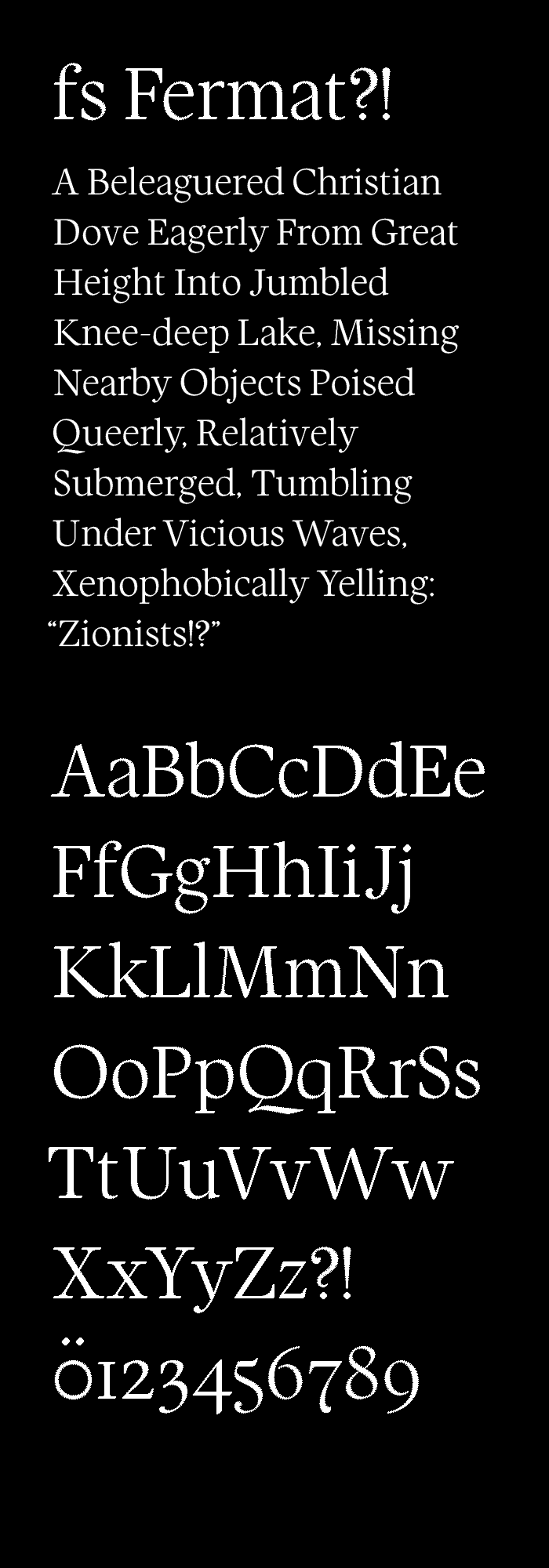
What began nearly 8 years ago as an experiment in multi-stage, multi-resolution pixel serif type drafting (starting smallish then manually upscaling x4), took on the robust character you see here after countless edits and some tricky lessons learned along the way.
The initial weight was on the light side (cloned privately for posterity), so I took a leap into this bookish weight by fattening each glyph copy-pasted 1 pixel shifted both up and to the right. A rudimentary technique, by no means novel, yet almost wholly effective. I saw fit from here to only make a handful of corrections, keeping the slightly rounded and slanted serif shape that resulted as well as the subtle reenforcing of a pen-nib construction.
More intriguing is the 1-bit “anti-aliasing” scheme I found myself progressively guided toward while finding the lines of these curves developing the initial light weight. Implied diagonals and said curves – as well as refinement of contrast – are substantially more granular and specific than had I taken a black-and-white posterized, or stairstepped approach.
At half-resolution, the resulting smoothness is acceptible. This type of hinting will be useful in developing a substitution rule set consisting of subpixel slanted or curved bricks to produce a “vectorized” version.
Indeed, such a process could be purely automated by a proficient developer or properly trained neural network (this would be a really interesting future feature for fontstruct pro – rather than hinting a font after painstaking vector construction, why not reverse the process by way of en vogue ai-assisted upscaling?).
Basic accented charaters and numerals are being added as I churn through the extended character set...
(Also, there seems to be a stray pixel above your extra X)
I’ll post images of my process, as I think the grid-doubling approach is worthy of further exploration. The next step before I move forward with more characters is to test out composites. :)
The overshoots are now a bit overshot. But rest assured I will rein them back in during the compositing phase. It’s already an improvement.
Now by manually doubling the grid, are you saying you were going from the 1:1 to 2:2 filter space by displacing each row and column by one grid block, or are you remaining at the 1:1 ratio? Either way, it is a technical and tedious challenge indeed. This is probably why you suggested single row or column selection. Working with the double size should be fine. Larger sizes offer more spacing options, but there's always the challenge of finding the balance for efficient brick usage. Fermat is great in pixel form, but how did you achieve the manual anti-aliasing in the sample?
This is not a bad modern font, but I put it 9/10. If I understand correctly, the construction of the characters of your font is based on writing with a broad nib. And this, along with horizontal serifs and drops peculiar to the fonts with the base in the pointed nib, looks too much eclectic. "С" "с" and "e" are too "crooked" in the bottom, and look narrow for the design of a wide-end pen. "g" falls to the left. I want to advise you to look at the Wermut font. It also does not strictly follow the rule, but looks cute (it also has Cyrillic, as it was made by Russian designers).
Do not forget that fonts can be based on a brush letter, there are not many such fonts, for example, Campan or Corda by Hoftype.
Cool! This must've taken you ages to create.
Thanks, Nyxo8803! Yes, even though my construction technique with basic pixel blocks is elementary, this has been quite an involved one. There's a little bit of savvy and subtlety in the use of 1-bit “anti-aliasing”.
I think I am 99% there with the basic uc & lc sets. It has change a lot from the originally published draft. As you can see, numerals are still only completed through 5. It honestly still shocks me how much weight and curve control there is with the pixel resolution on display. I heartily stand by my assessment from 8 years ago that this is just large enough a grid to realize the letterforms I am attempting.
Also, want to say Sychoff pushed me to reassess some of my design choices. I had a hybrid approach to what is basically an oldstyle serif design with a “display” type contrast. I checked out the font you linked, and while it doesn't inform my additional work, it was cool to have an example of what you were talking about. I had gone back and forth about whether the beaks on uppercase characters would be oblique or vertical, and as well the terminal design for the lc used to be balls rather than beaks. I kept the curling terminals of certain glyphs (f, g, j, y, 3, 5) and went with a more beaked form for terminals within the x-height. It was good advice to create more unity within the design while maintaining the characteristic rule-breaking/defining moments that I think give this serif design it’s style. If I ever got around to rendering this with curves (yes, including via my vaunted and much-delayed release of the brick patching technique) those little curly terminals with their sharp interiors would be so challenging and fun, and I suppose even foxy ;)
This gives me Times New Roman vibes
I don't know if you're still updating this font, but the o-grave and o-acute characters are swapped.